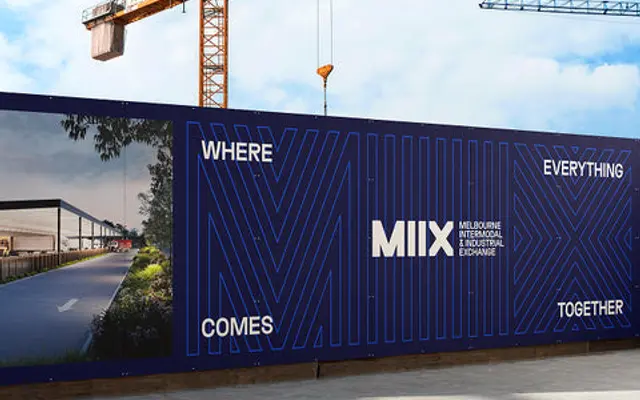
Dwight
Lift Type · Romain Oudin · 2025
A geometric sans in four widths and five weights, distinguished by its round-shaped punctuation reminiscent of punched paper.
Designed by Romain Oudin and released in 2025, the family spans 40 styles across Regular, Narrow, Condensed and ExtraCondensed widths, each with five weights and matching italics. The pronounced circular punctuation gives it a character that separates it from blander geometric workhorses, while the range of widths and weights makes it functional across both text and display settings. A variable version and multiple stylistic alternates extend its flexibility further.
Described explicitly as a geometrical sans-serif, characterised by pronounced round-shaped punctuation and a rigorous yet offbeat construction consistent with the geometric tradition.